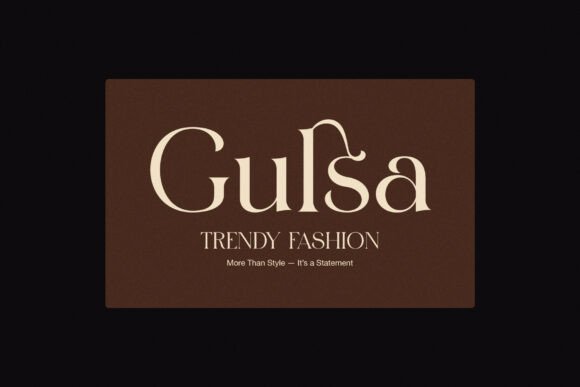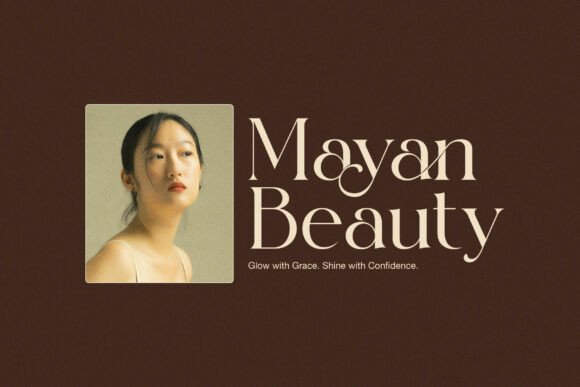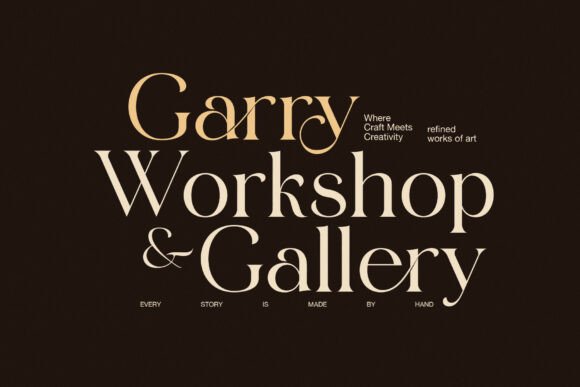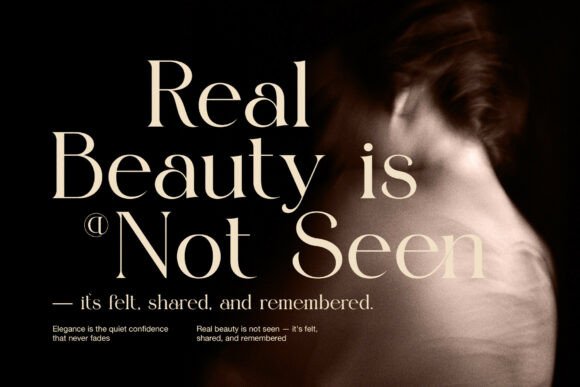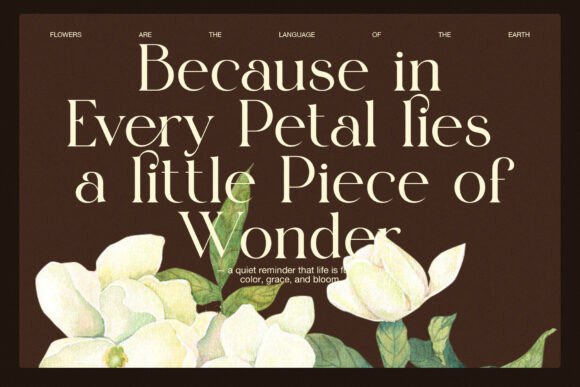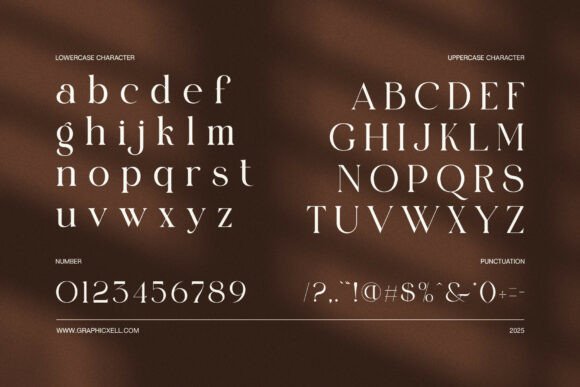
Introducing Elgins Font: Elevate Your Designs with Elegance and Versatility
In the world of typography, a font can make or break a design. If you’re a designer or crafter looking for a typeface that exudes refinement and sophistication, look no further than Elgins Font. This beautifully crafted serif font is designed to elevate your creative projects with its modern style, timeless charm, and exceptional versatility.
The Perfect Balance of Style and Functionality
Elgins Font boasts a balanced structure that makes it suitable for a wide range of design styles. Its proportional letterforms and clean lines deliver both elegance and versatility, making it perfect for high-end logos, magazine layouts, website headlines, and more. Whether you’re working on a luxury brand identity or a creative editorial project, Elgins adapts effortlessly to deliver stunning results.
Designed for Readability and Visual Appeal
One of the standout features of Elgins Font is its functional ligatures. These ligatures add a natural flow between letters, enhancing visual appeal and readability. This thoughtful design element ensures that your text is not only beautiful but also easy to read, making it perfect for body text, headlines, and titles.
Seamless Performance Across Design Platforms
With Elgins Font, the design possibilities are endless. Use it to create:
- Luxury Logos: Elgins’ elegant serif design makes it perfect for high-end logos that require sophistication and refinement.
- Magazine Layouts: Create stunning magazine layouts with Elgins’ clean lines, proportional letterforms, and exceptional readability.
- Website Headlines: Use Elgins to create eye-catching website headlines that grab attention and elevate your brand’s online presence.
- Editorial Design: Elgins is ideal for editorial design projects, including books, journals, and newspapers, where readability and style are paramount.
Why Choose Elgins Font?
So, why choose Elgins Font for your design projects? Here are just a few compelling reasons:
- Exceptional Versatility: Elgins adapts effortlessly to different design styles, making it a versatile addition to your font library.
- Timeless Charm: Elgins’ classic serif design ensures that your designs will stand the test of time, remaining stylish and sophisticated for years to come.
- Beautiful Ligatures: Elgins’ functional ligatures add a natural flow between letters, enhancing visual appeal and readability.
In conclusion, Elgins Font is a refined serif typeface that offers the perfect blend of style, functionality, and versatility. Whether you’re a designer or crafter looking to elevate your creative projects, Elgins is an excellent choice. With its balanced structure, clean lines, and exceptional readability, Elgins is sure to become a staple in your font library. So why wait? Download Elgins Font today and experience the power of beautiful typography in your designs.